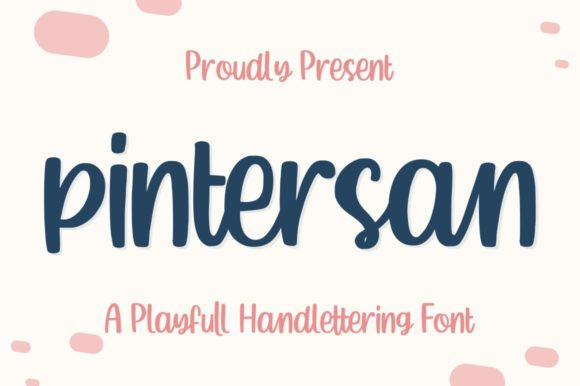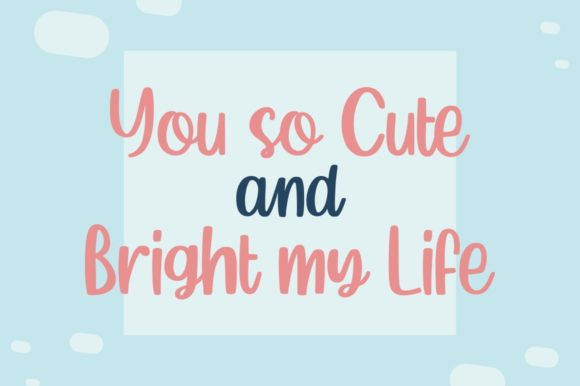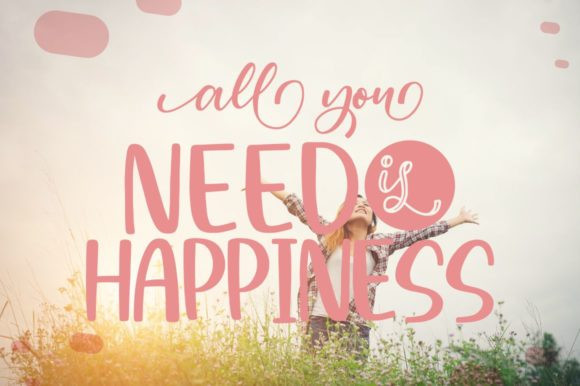
Pintersan Font
Pintersan is a cute and casual handwritten font with an incredibly friendly feel. It features gorgeous swashes and ligatures that make this script incredibly versatile. Whether you’re looking for fonts for Instagram or calligraphy scripts for DIY projects, Pintersan will turn any creative idea into a true piece of art!